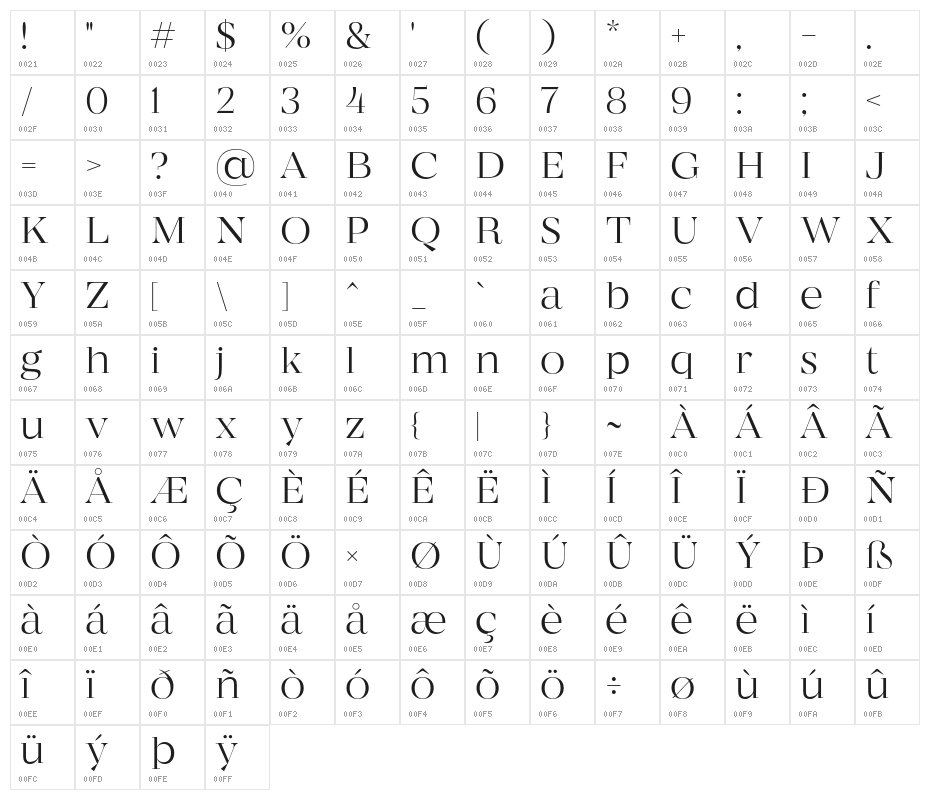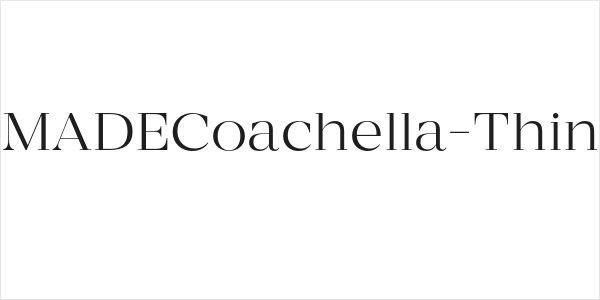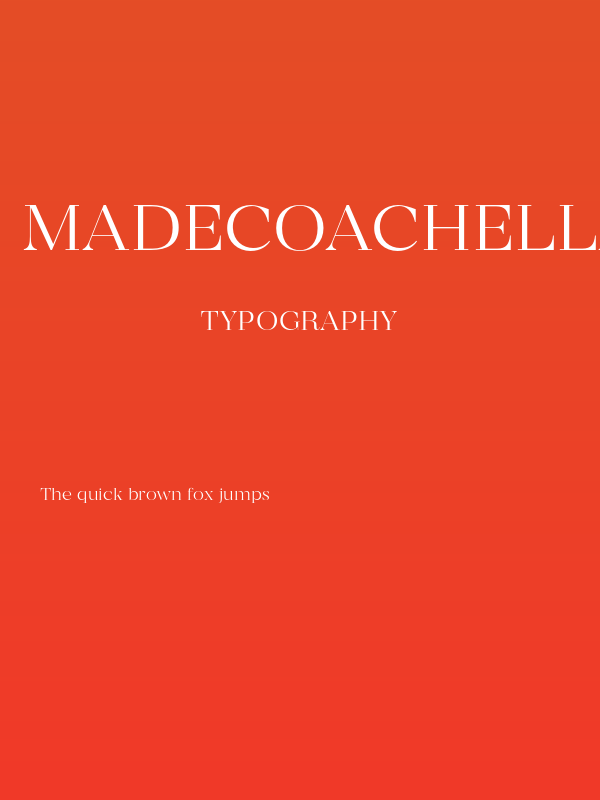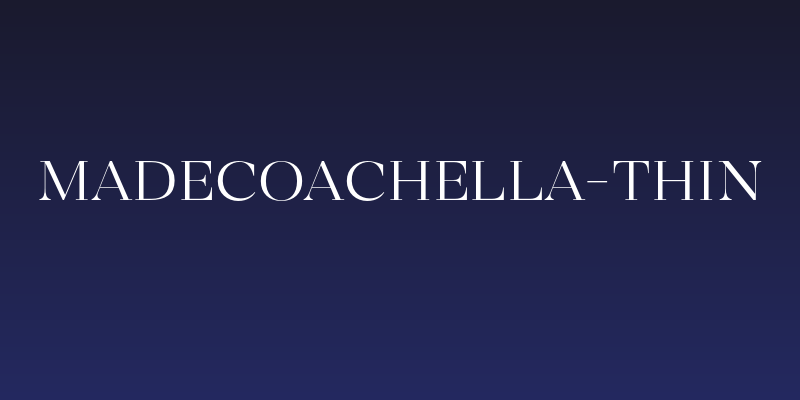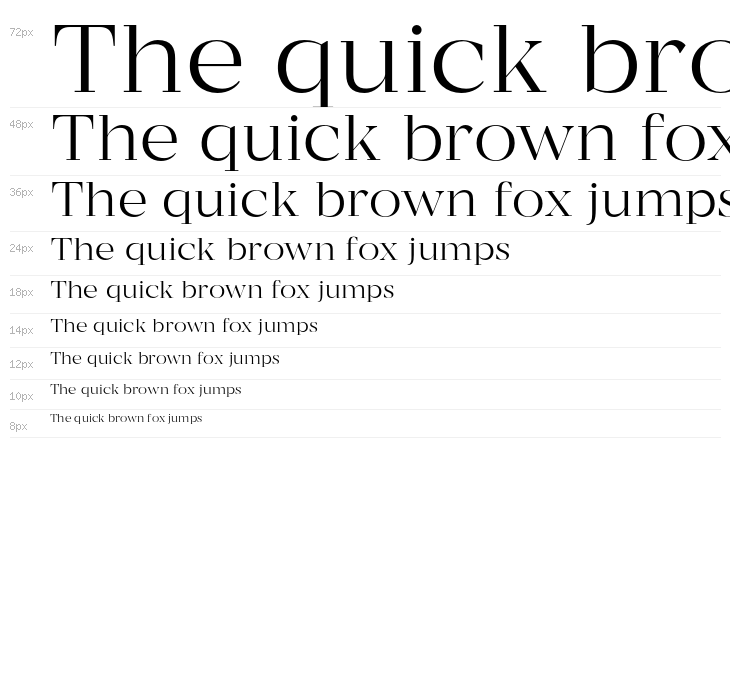
MADECoachella-Thin Font
MADECoachella-Thin Description
This elegant serif font features a refined and sophisticated design, characterized by its thin strokes and high contrast between thick and thin lines. The uppercase letters exhibit a classic and timeless appeal, while the lowercase letters maintain a graceful and fluid form. The numerals are well-proportioned, ensuring readability and aesthetic balance. The special characters are thoughtfully designed to complement the overall style, making it versatile for various applications. Its clean and modern look is suitable for both digital and print media, offering a touch of elegance to any project.